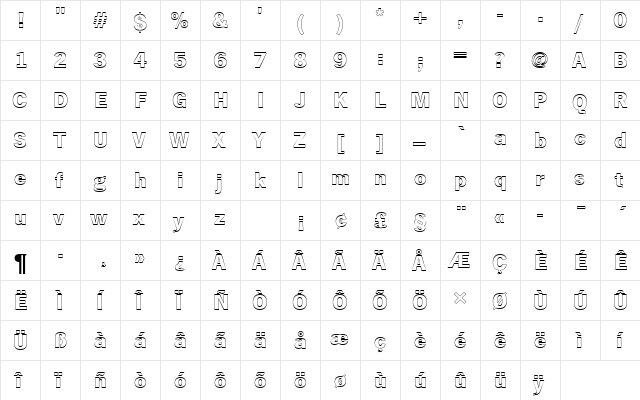
NewsGotTBolOu1 Regular Font Preview
NewsGotTBolOu1 Regular
Design Context for NewsGotTBolOu1 Typeface
NewsGotTBolOu1 is a composed and adaptable typeface that performs quietly and consistently across a wide range of design contexts.